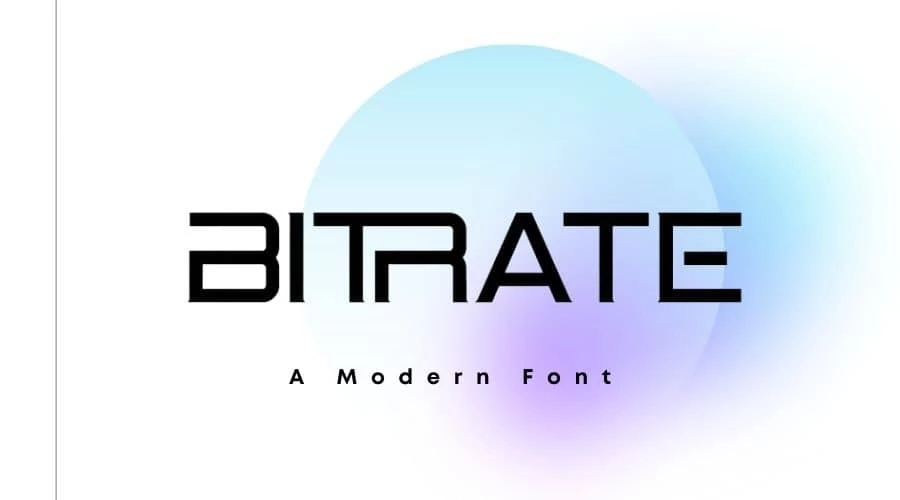
Bitrate font is an attractive Sans Serif font style, motivated by modern business and also advanced industries, designed by RaisProject. The font was handcrafted for any of your special projects. Bitrate Font style includes a complete set of gorgeous uppercase and lowercase letters, numerals, and Multi-languages characters. The typeface additionally comes with imaginative ligatures to make it look truly great as well as unique.
It is possible to use this gorgeous typography for a variety of functions like headlines, promotions, events, branding, advertising, magazines, signage, invitations, stationery, social media posts, labels, or any projects that need a unique strong style. This typeface is also perfect for Automotive, Apps, cosmetics, Beauty, Technology, Games, Music, Sports, etc.
Bitrate is a futuristic display design by RaisProject with wide, engineered shapes suited to short technology, automotive, game, and interface-inspired headlines. The stored filename identifies itself as a demo, which matters: a demo can have fewer characters or narrower permissions than the paid product even when the preview looks identical for basic Latin text.
Use the live preview for short uppercase names first. Test the digits if the design includes model numbers, dates, prices, or scores, and inspect spacing around wide letters such as M and W. Bitrate is a display voice rather than a body-text workhorse, so pair it with a readable sans serif for supporting copy and interface labels.